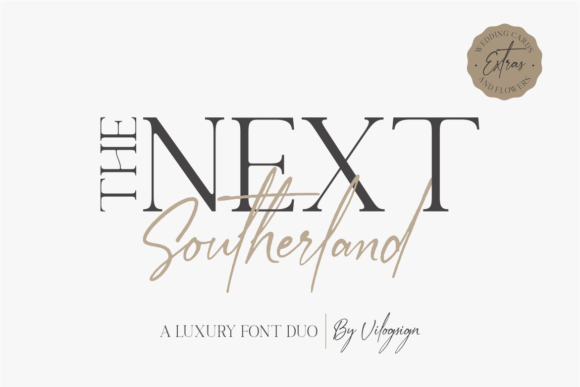
Introducing The Next Southerland Font - the best font for classic typing that will take your designs to the next level! This beautiful duo font (handwritten and serif) created by Vilogsign is the perfect match made in heaven that will add elegance and a timeless feel to your next project.
With its unique combination of handwritten and serif styles, The Next Southerland Font has the potential to become your go-to font for all your classic typing needs. Its exquisite letterforms and graceful curves will captivate your audience, leaving a lasting impression on their minds.
Whether you're designing wedding invitations, product packaging, or branding materials, The Next Southerland Font will help you stand out from the crowd. Its versatility and charm make it the perfect choice for any project that needs a touch of sophistication.
The Next Southerland Font is not just any font - it's a work of art that will elevate your designs to new heights. Its beauty and elegance will evoke emotions of joy, happiness, and satisfaction in your clients, making them fall in love with your work.